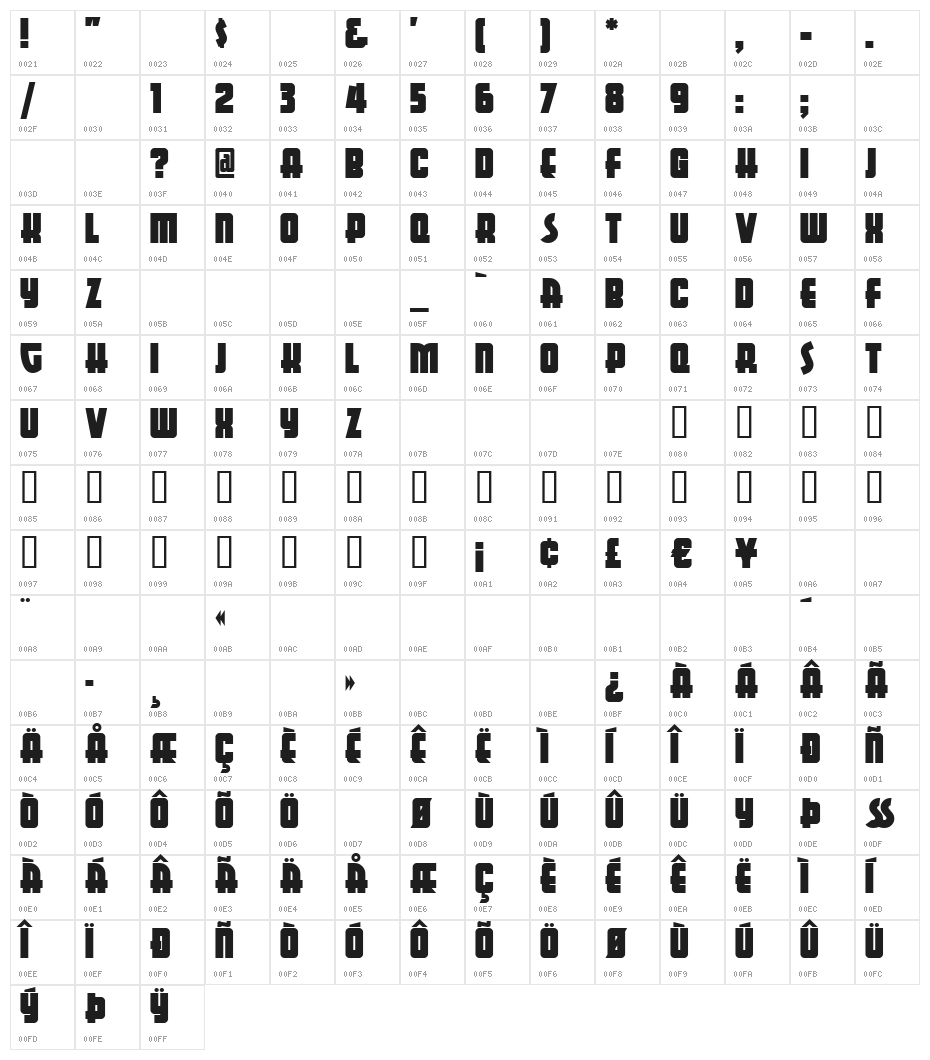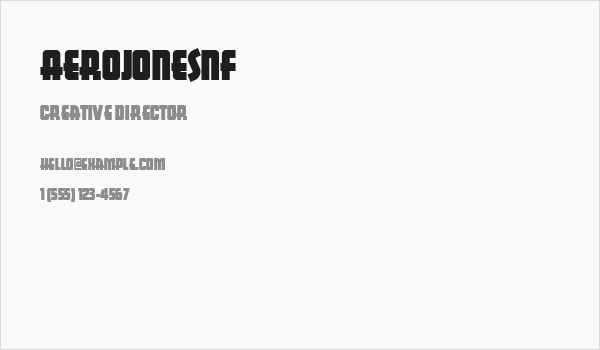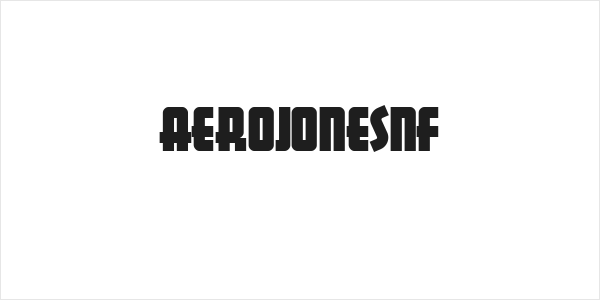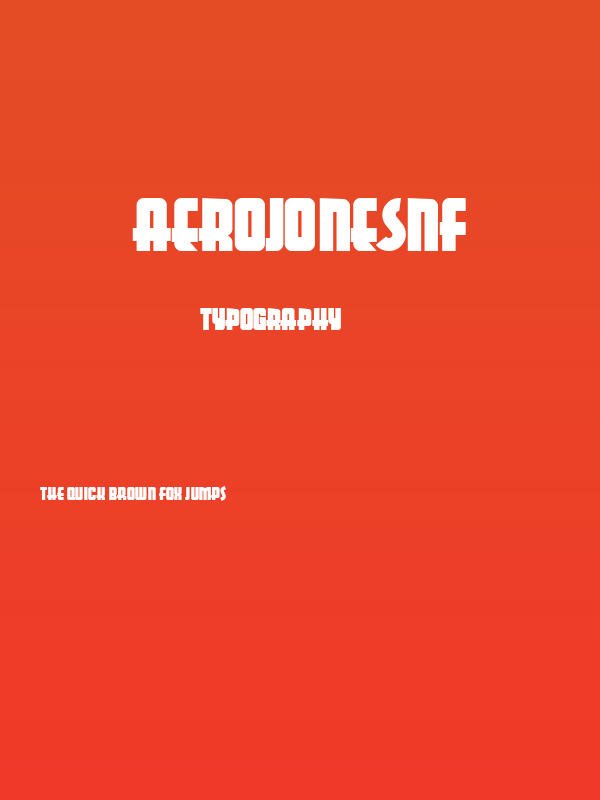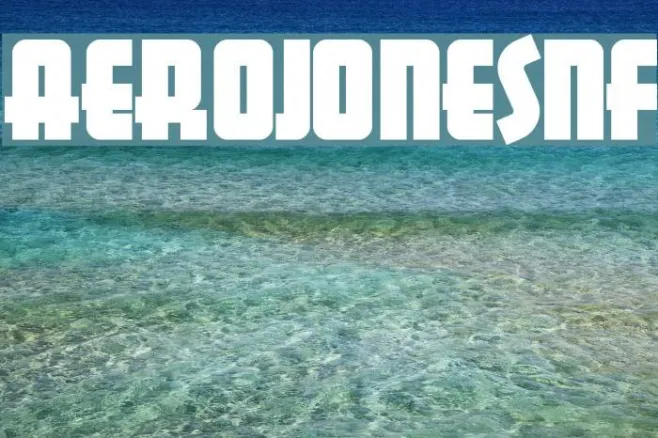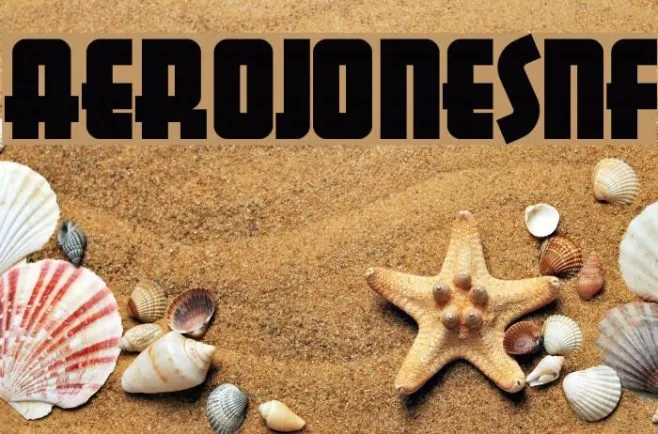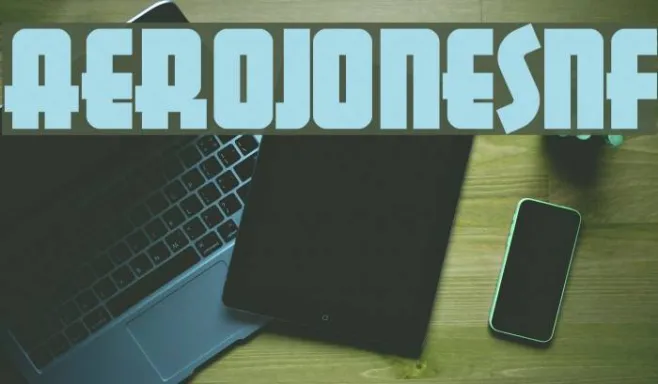
AerojonesNF Font
AerojonesNF Description
This font features a bold and striking design with a strong geometric influence. The characters are blocky and robust, with a uniform thickness throughout, creating a powerful visual impact. The uppercase letters are particularly prominent, with sharp angles and a solid presence. The lowercase letters maintain the same boldness, ensuring consistency across the typeface. Numbers and special characters are equally bold, making them stand out in any composition. This font is ideal for projects that require a strong and attention-grabbing typeface.
| Proposed Projects | Perfect for posters, headlines, logos, and branding materials that need to make a strong statement. |